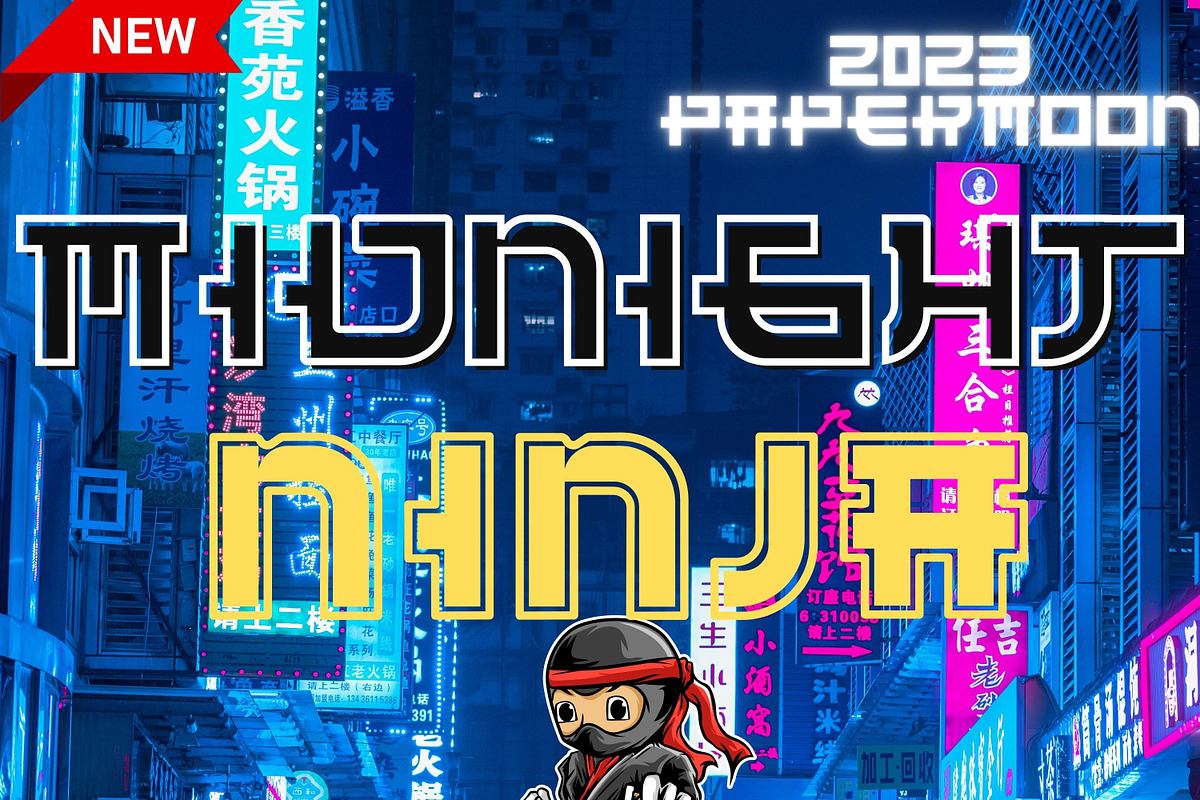
Midnight Ninja Samurai Font Free Download is a bold, action-packed typeface inspired by ancient warriors, stealth, and cinematic energy. With sharp edges, dynamic strokes, and an Eastern-influenced aesthetic, this font is perfect for martial arts movie posters, gaming titles, Japanese-inspired branding, comic books, and action-themed apparel.
It blends tradition with attitude—capturing the silent strength of a ninja and the honor of a samurai. Whether you're creating a retro anime tribute or an intense fight scene logo, Midnight Ninja Samurai Font Free Download delivers fierce impact with style.
Designed for high visibility in both print and digital use, it’s a go-to for designers seeking bold, culturally rich visual storytelling.